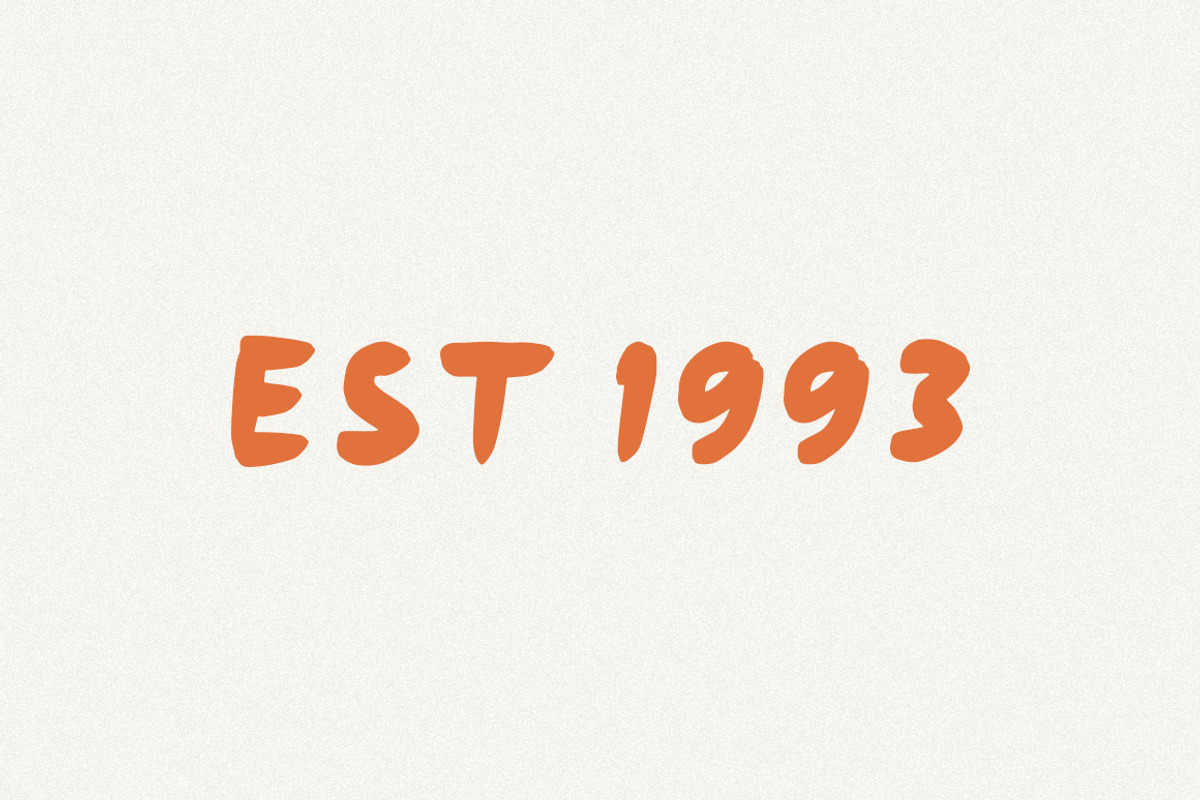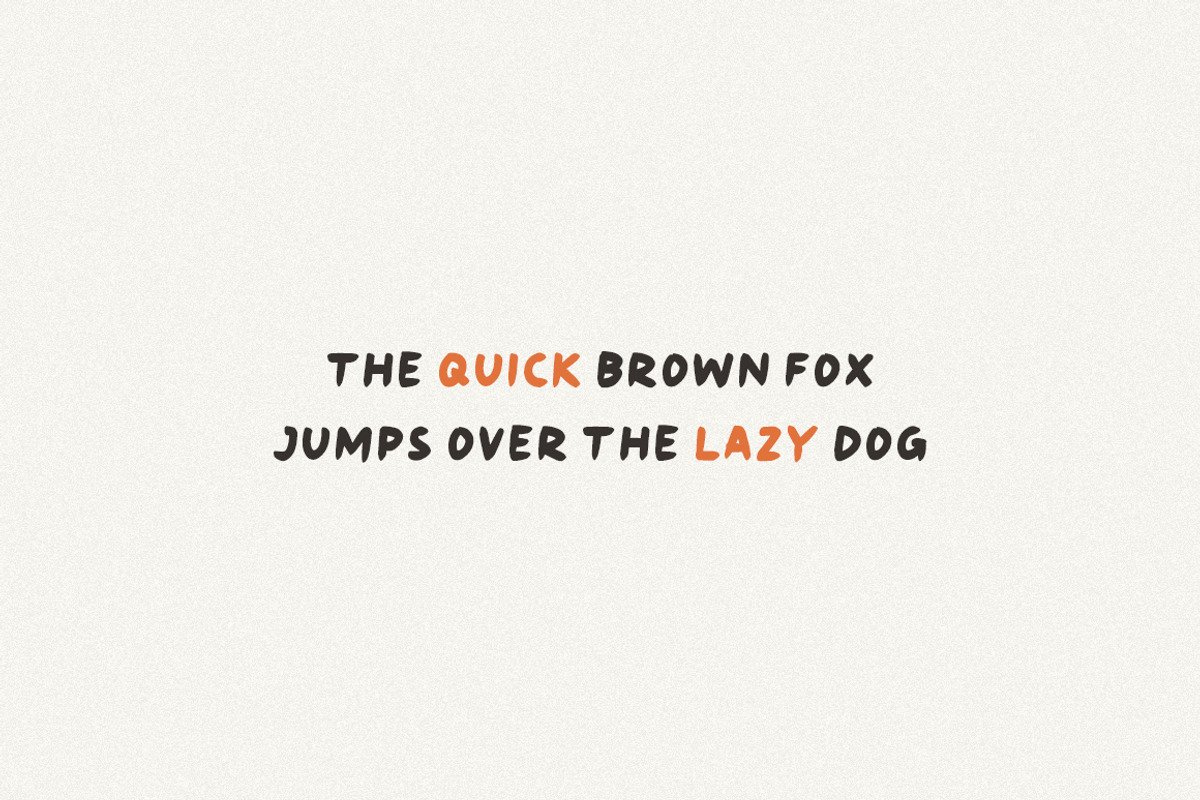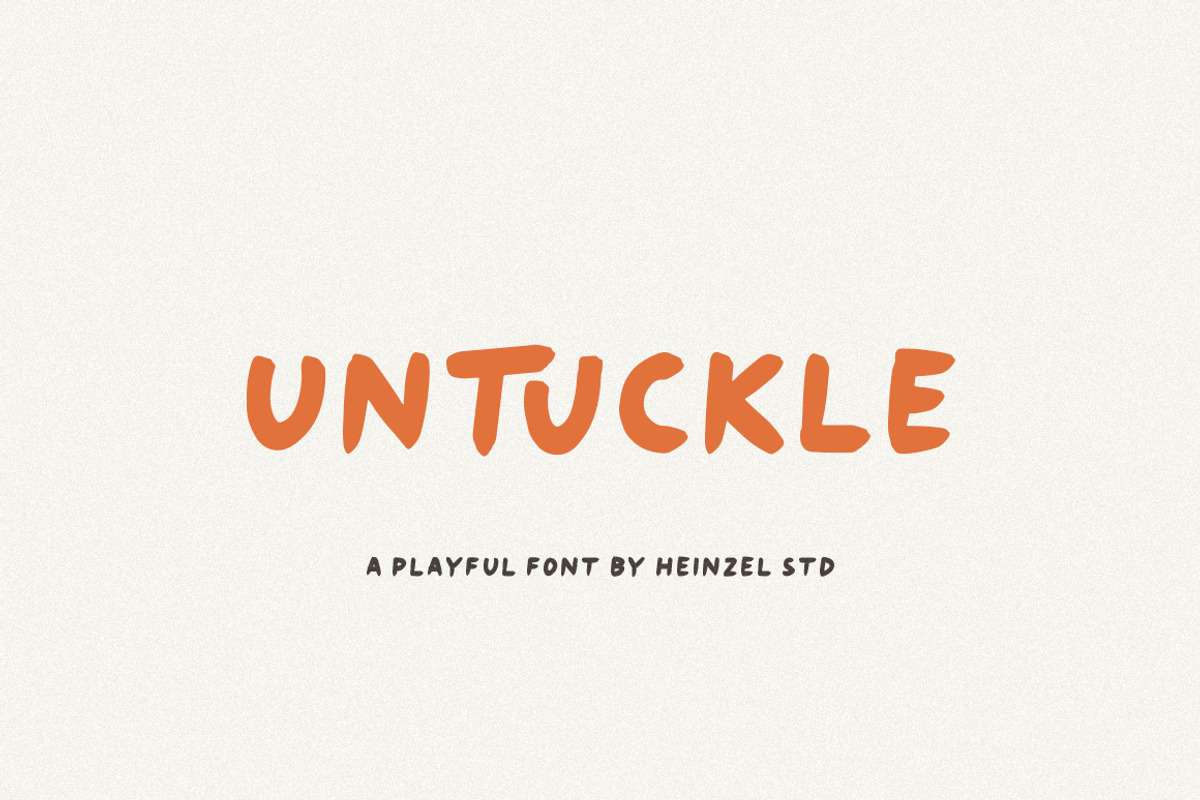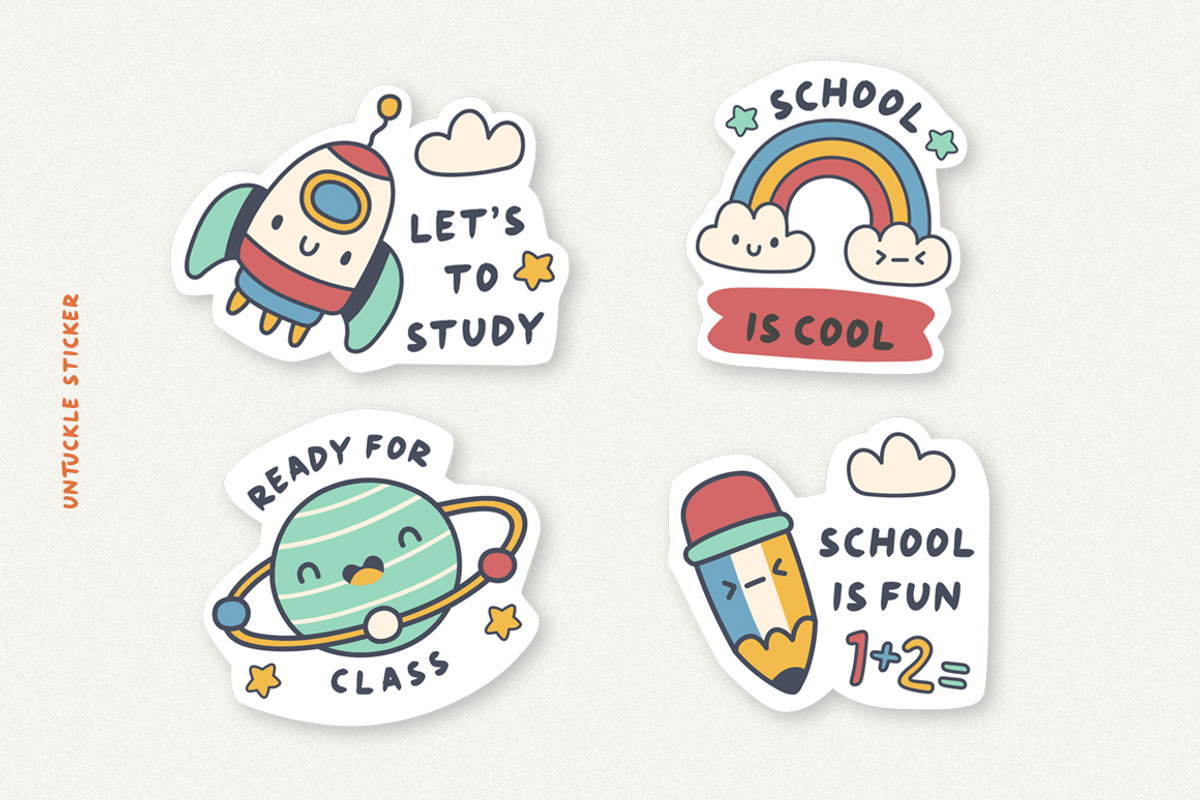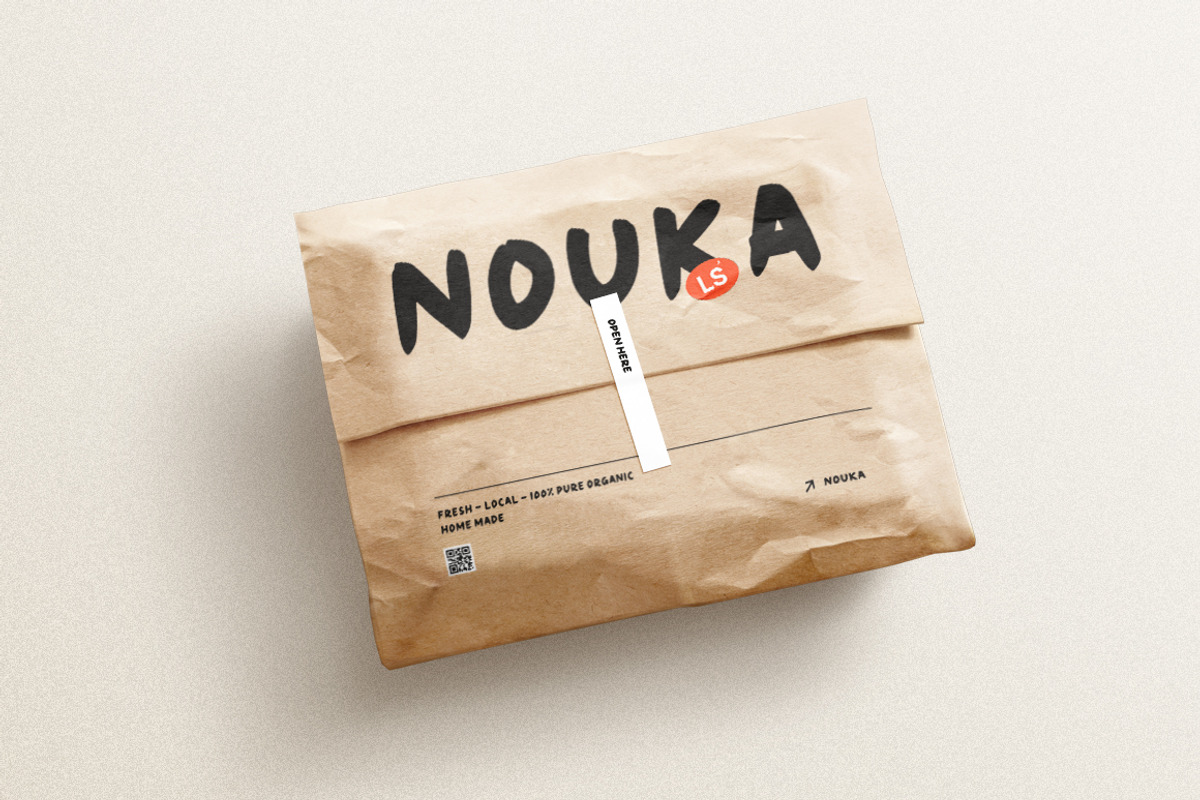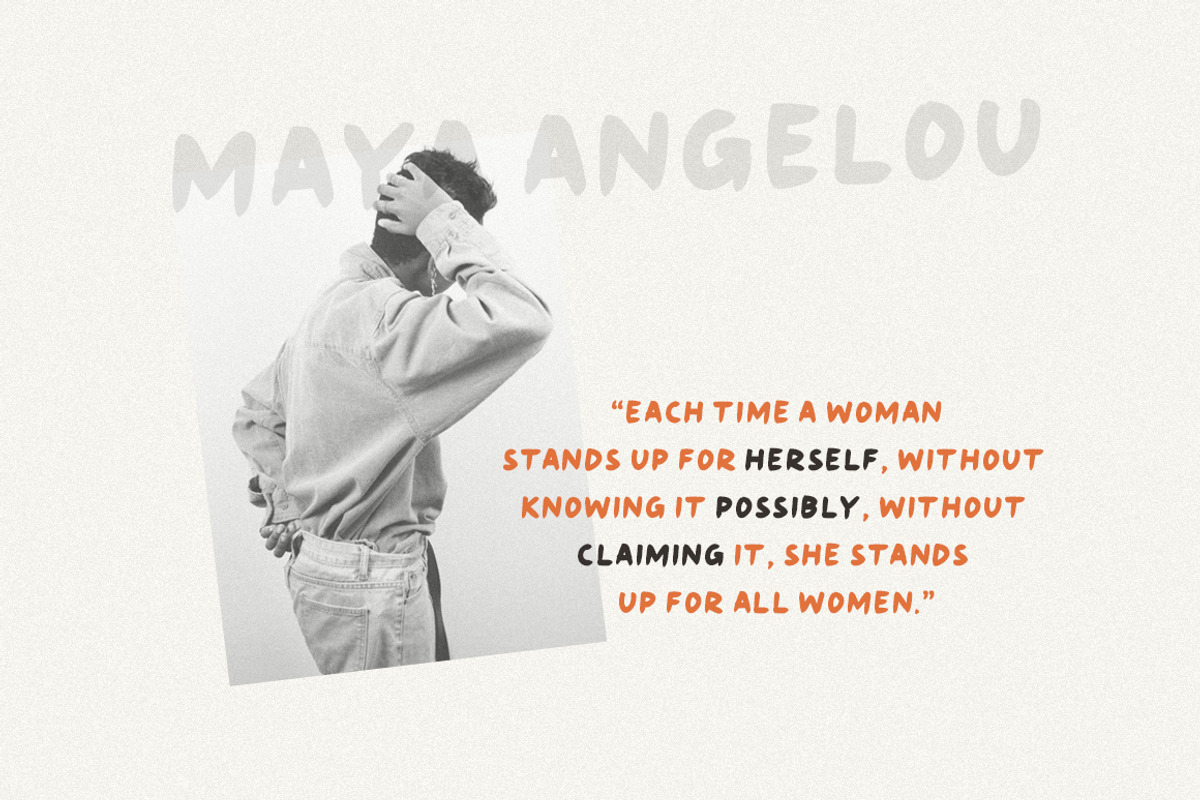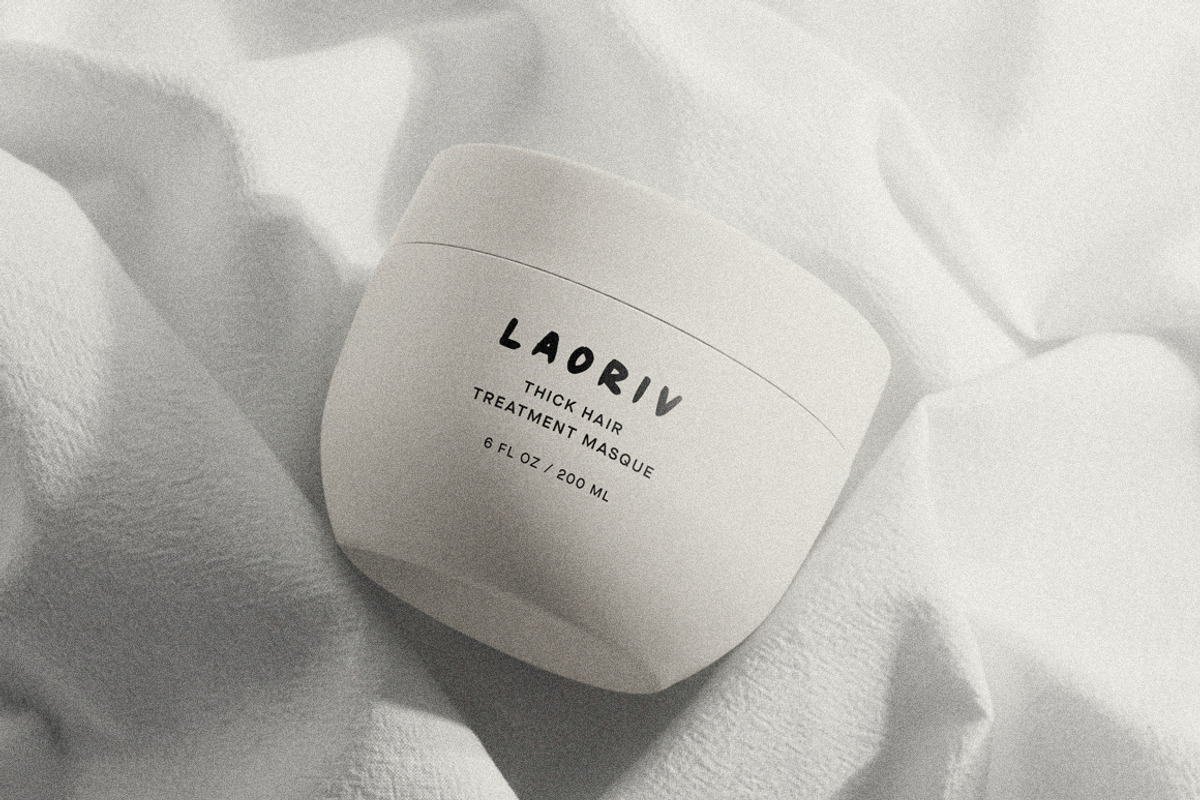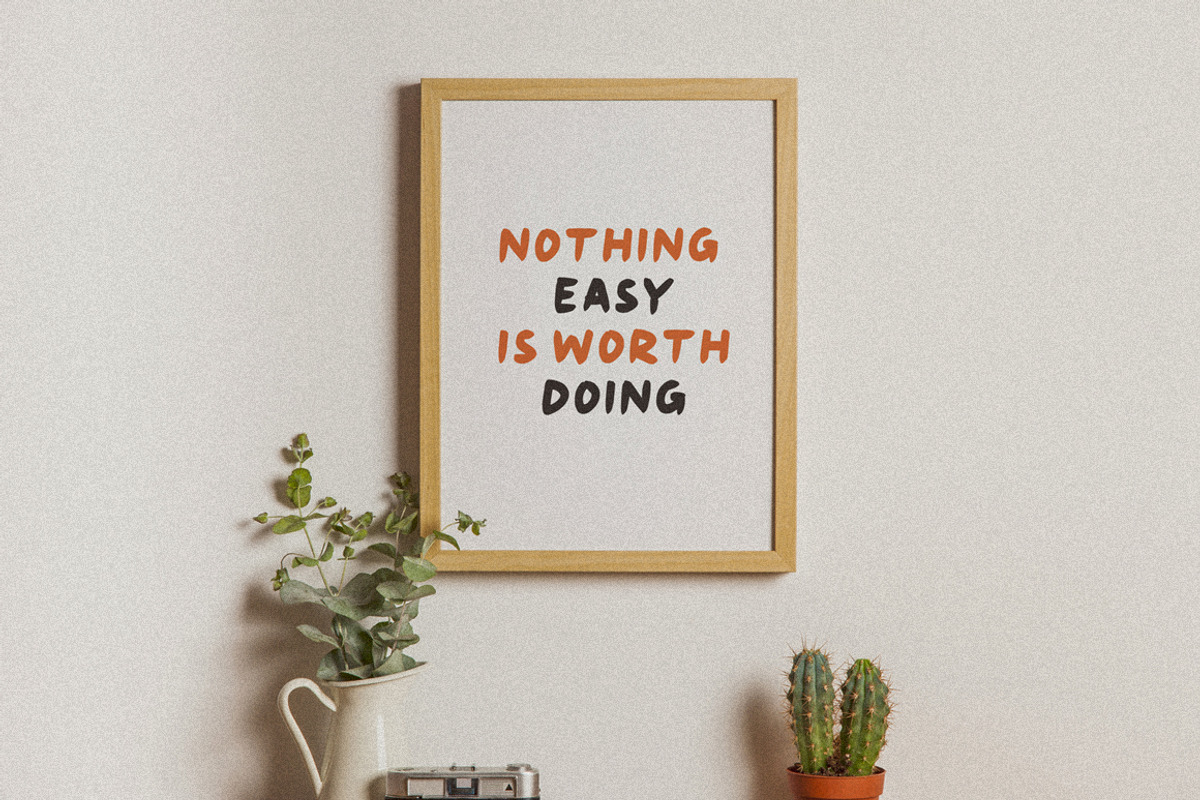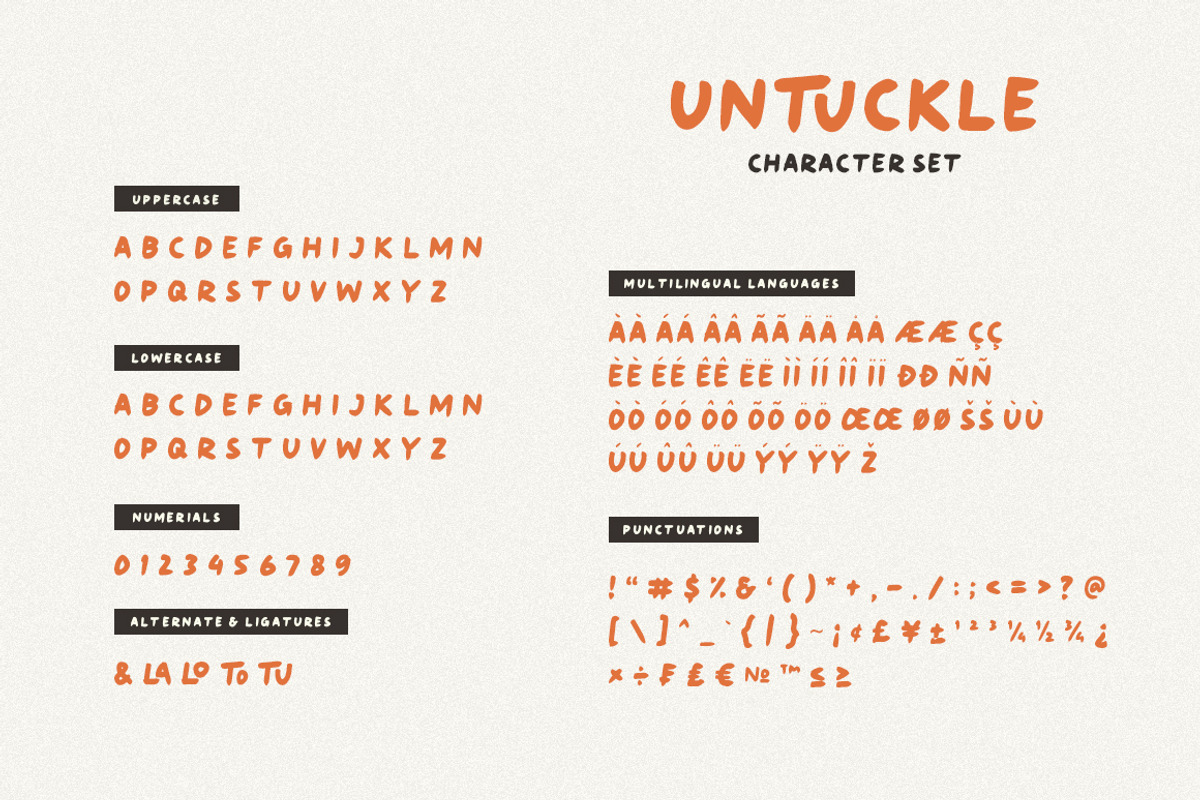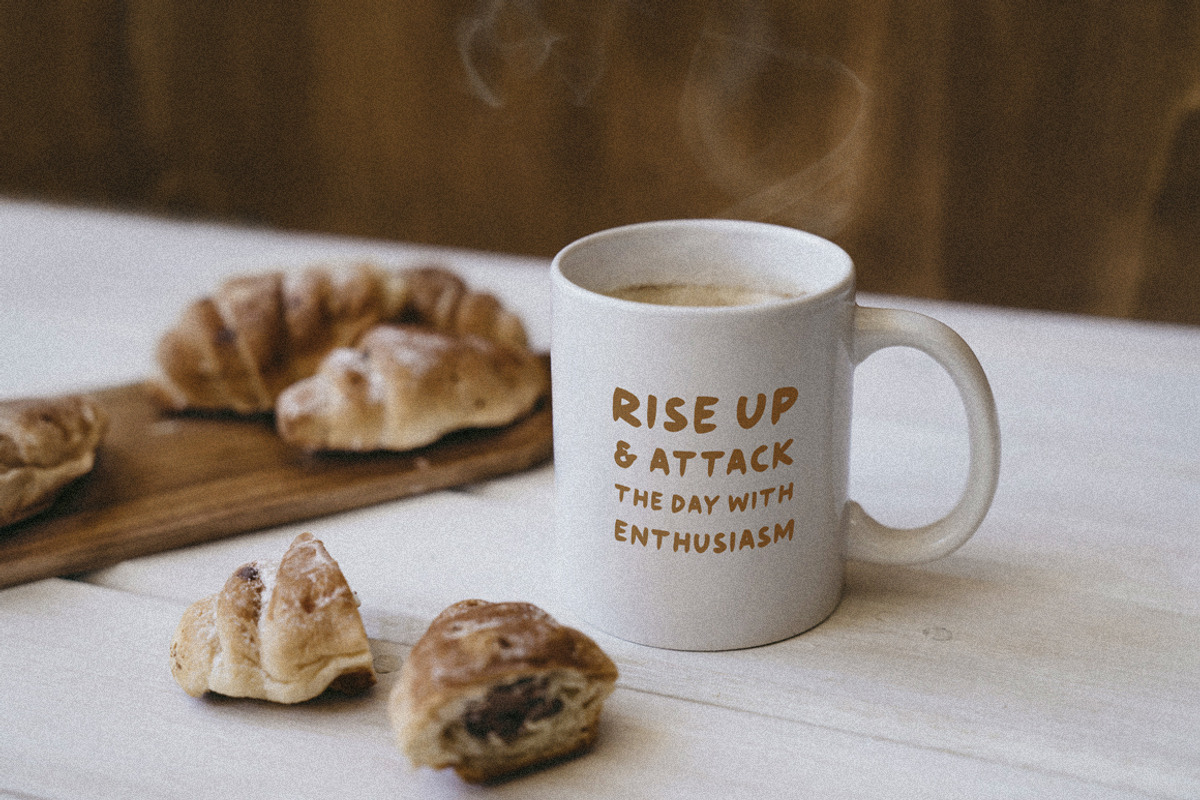
Untuckle Playful Font
Untuckle is a playful and natural handwritten font, ideal for adding a personal touch to your creative projects. With its free-flowing strokes and organic feel, this font is perfect for designing logos, crafting watermarks, and enhancing branding materials. Whether you're working on wedding invitations or creating inspiring quotes, Untuckle provides the charm and authenticity required for visually engaging text elements.
This versatile font seamlessly adapts to various contexts, making it a great choice for taglines and other creative needs. Its warm, inviting style ensures your work stands out while conveying an approachable and genuine message. Embrace Untuckle to bring a touch of whimsy and elegance to your designs, effortlessly transforming ordinary projects into extraordinary creations.
Untuckle Features :
- Ligatures and Alternate